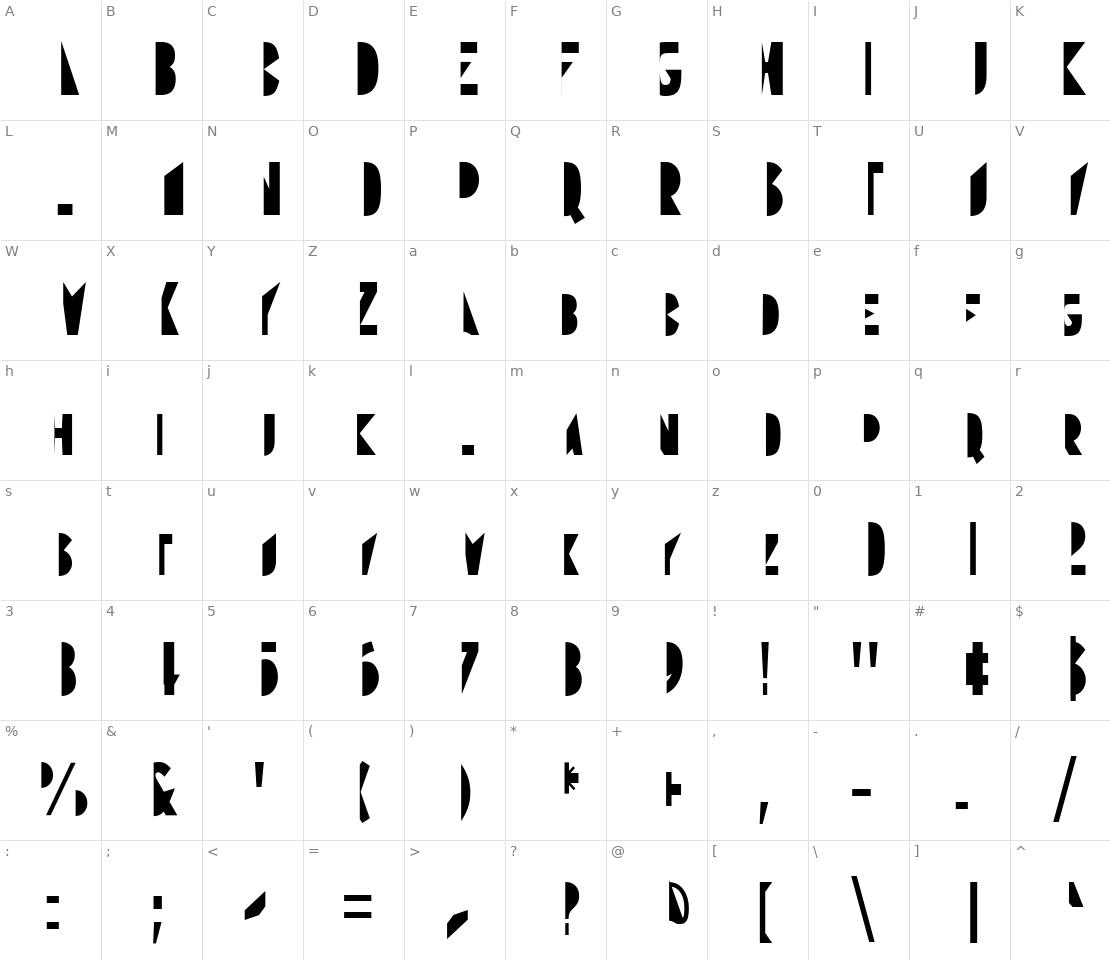
Gudariak
Gudariak is a bold, geometric stencil face from deFharo with heavy letterforms that feel more like abstract shapes than traditional type. The stencil cuts break up the dense structure in unexpected ways, giving it an experimental quality that pushes past standard industrial stencil conventions. Built for posters, headlines, and display work where you want something that reads as both modern and slightly confrontational.